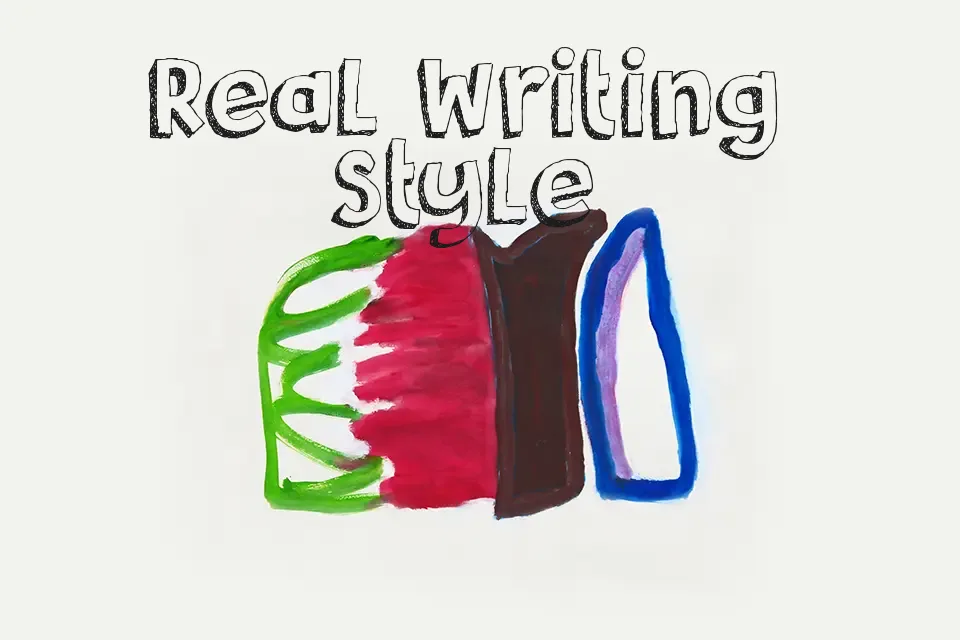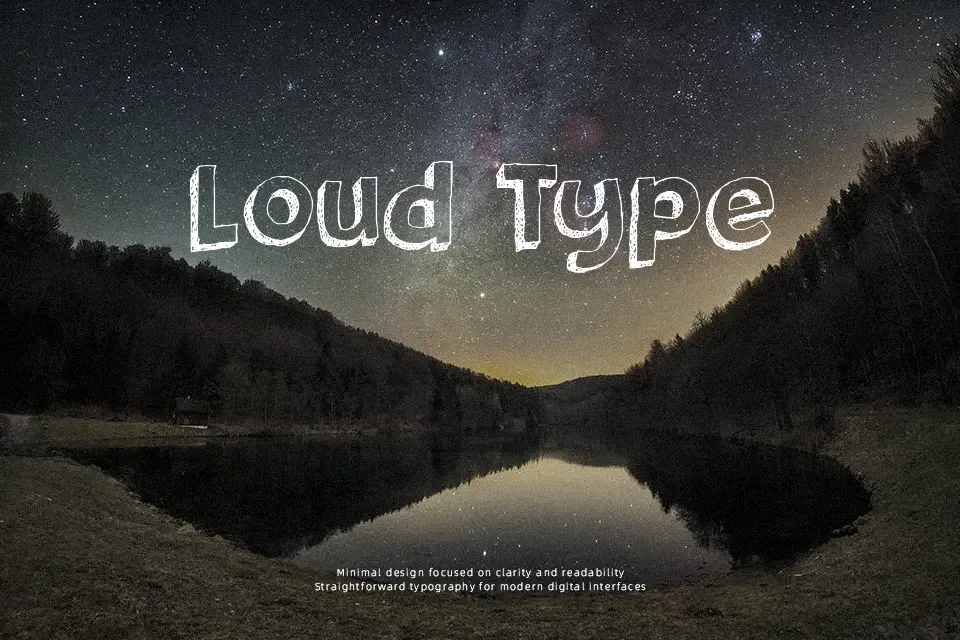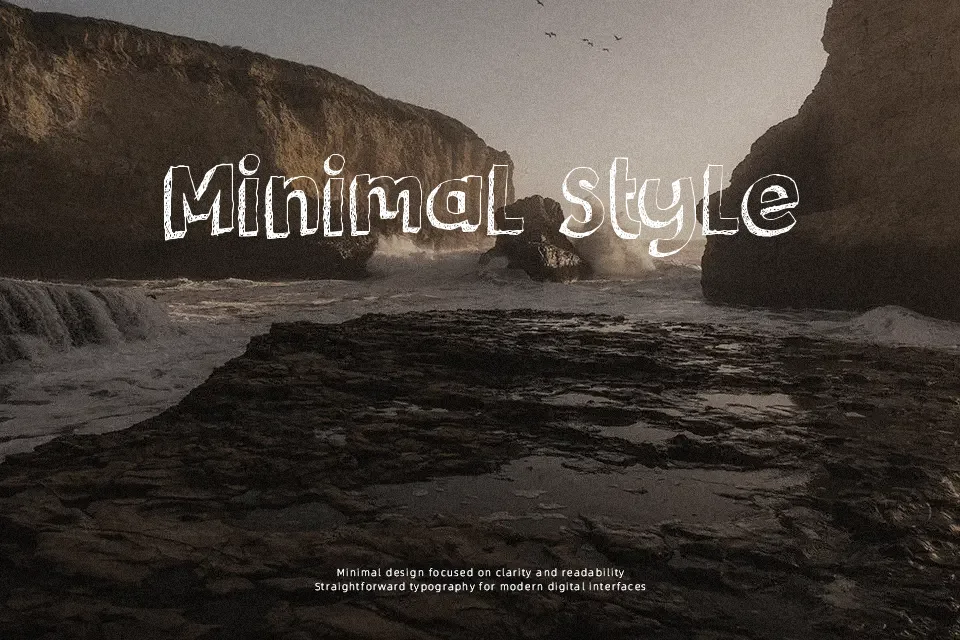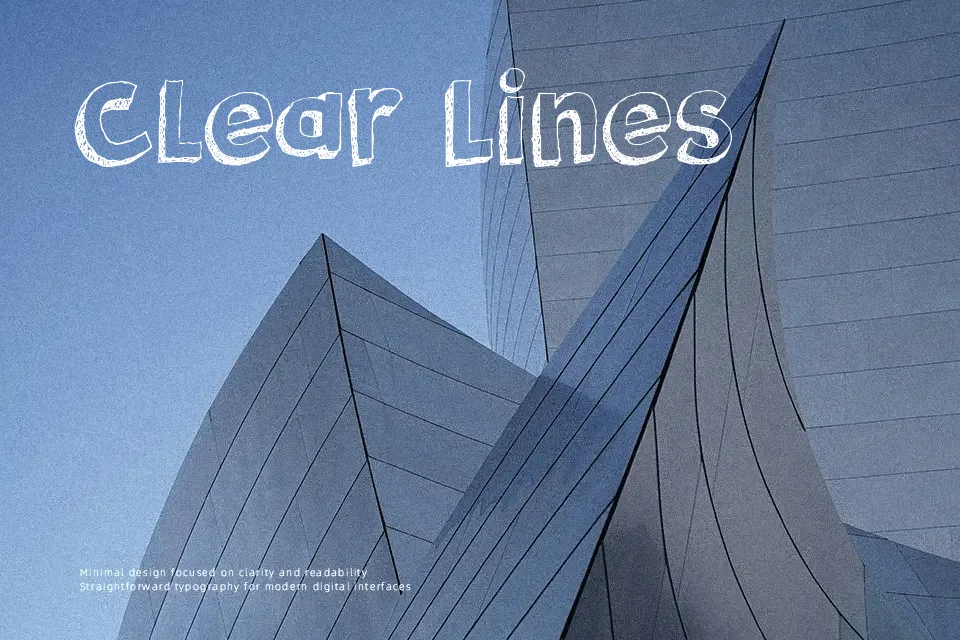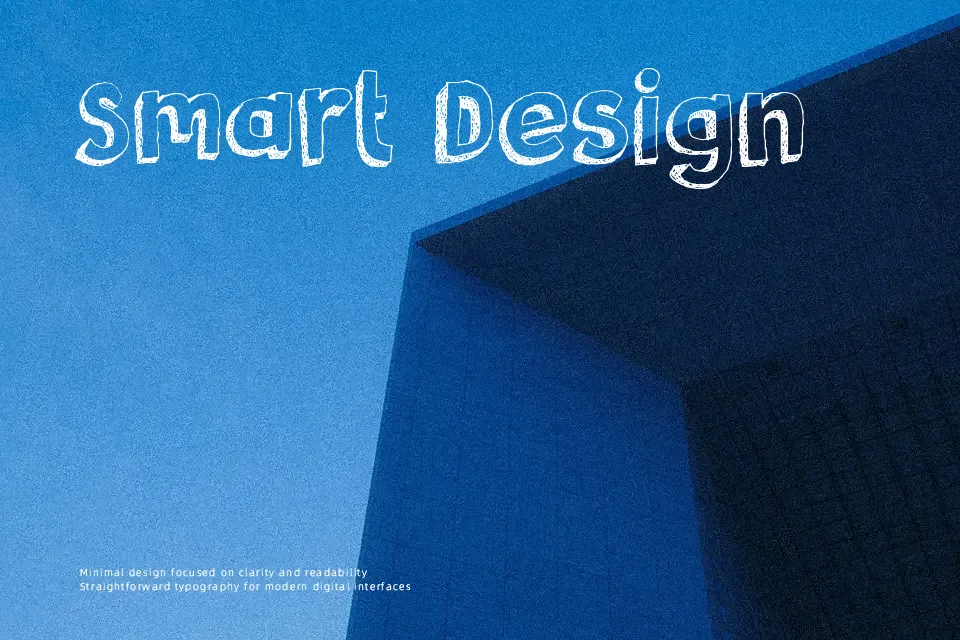
DK Bergelmir Font
Designed by Hanoded
The letters are chunky and upright, drawn with uneven hollow strokes, rough inner texture, and slightly loose spacing that keeps the wordshape lively instead of rigid. It feels casual, decorative, and a little vintage, closer to hand-inked signage or comic display lettering than to a polished brand face. In practice, I would reserve it for cereal-box style packaging, classroom posters, themed party signage, or title art for kids-oriented graphics, where the distressed outline adds charm without needing fine detail. For small captions, body copy, or restrained corporate layouts, it gets busy fast and loses its appeal.
comic-style headlines, children’s event posters, playful product packaging, novelty signage
body copy, restrained corporate branding, compact UI labels, small captions